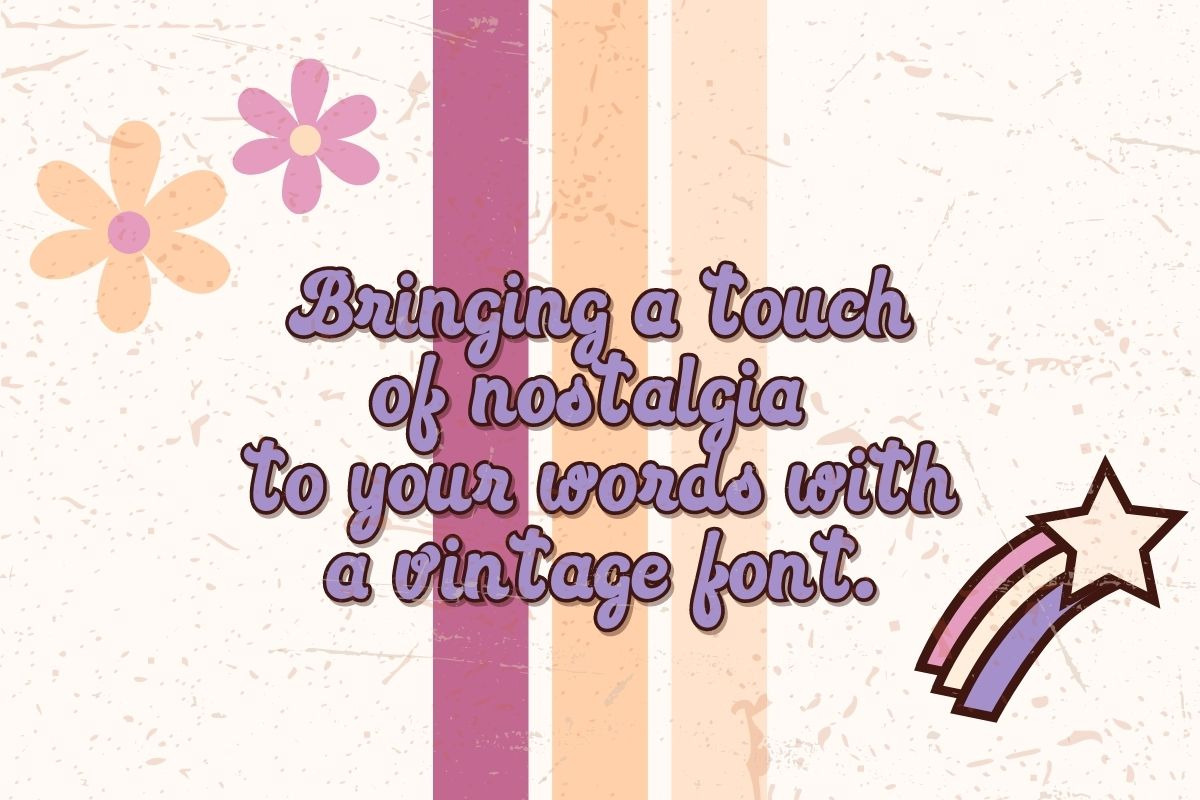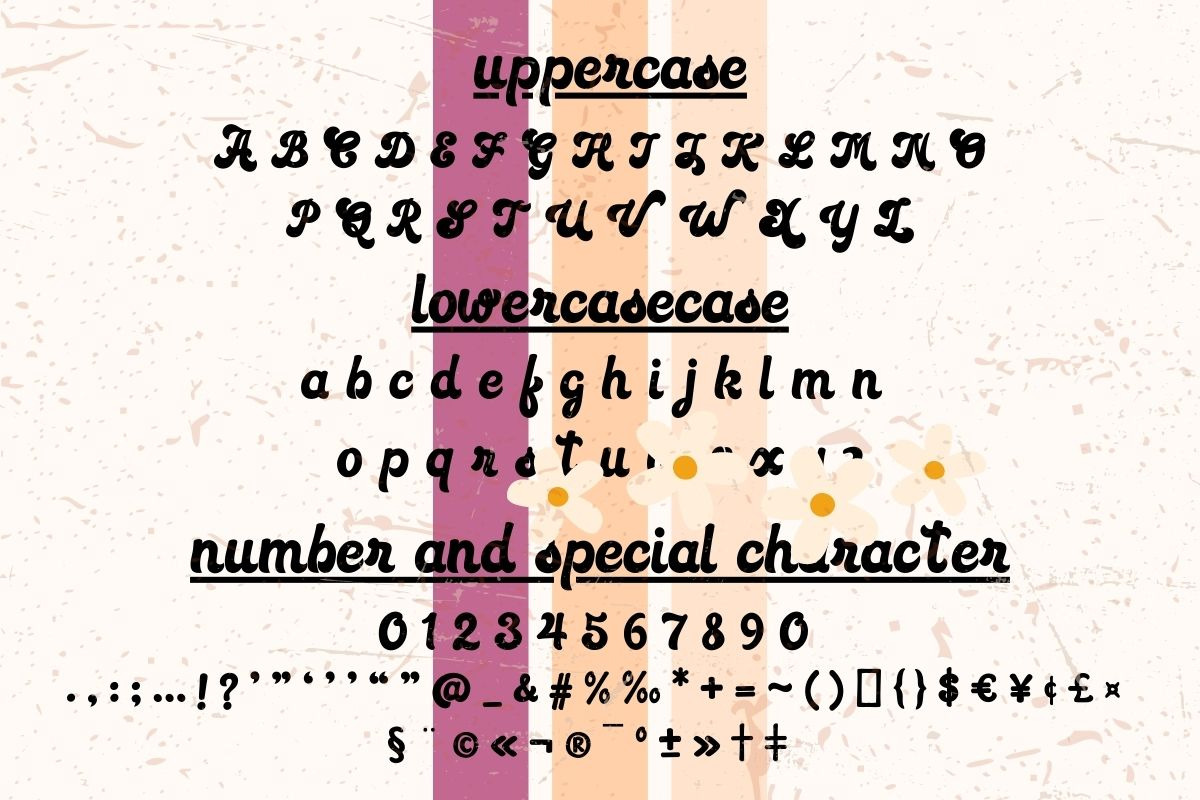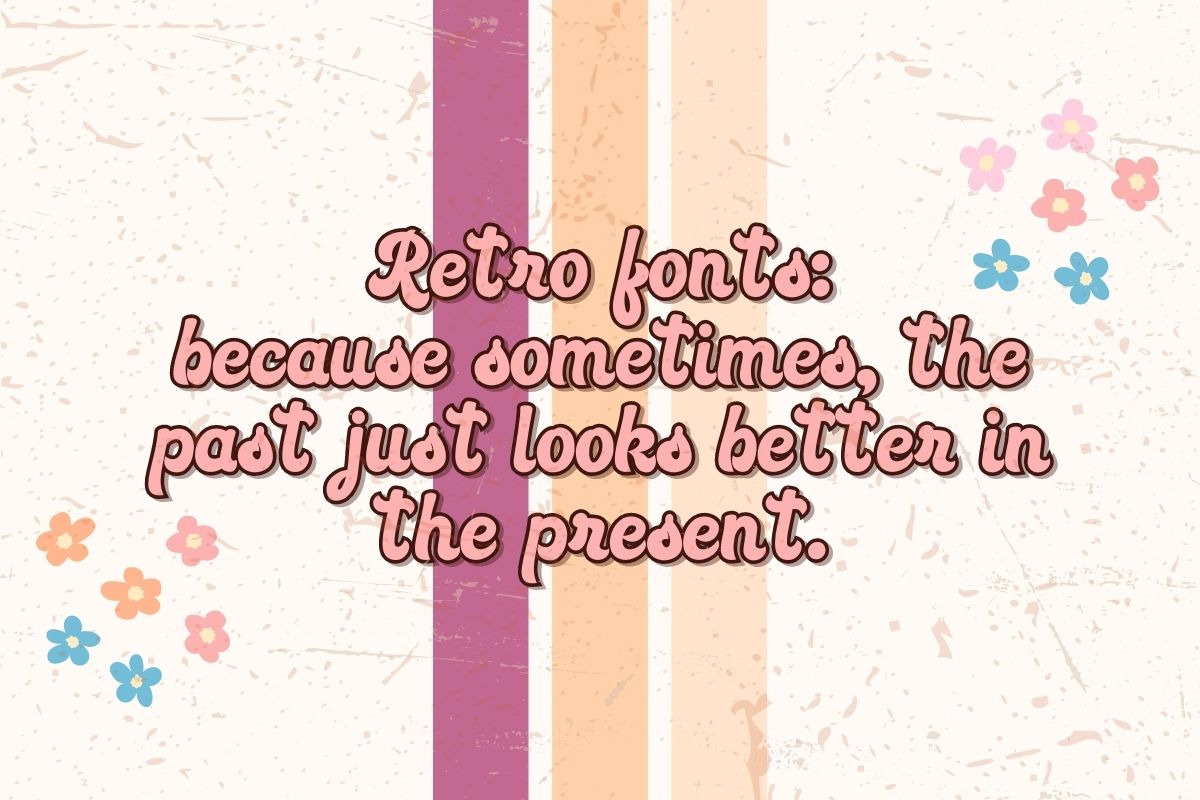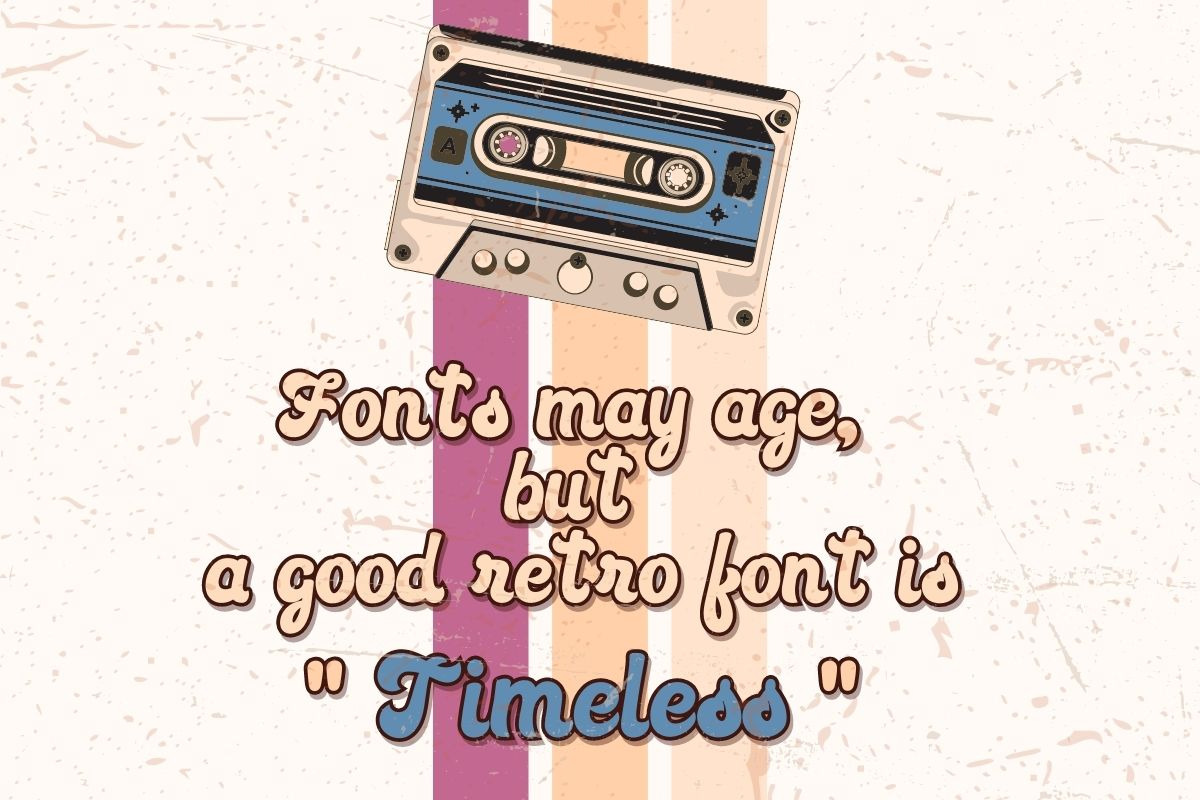
Classic Queen Retro - Groovy
Introducing Classic Queen Retro – a delightful fusion of DisplayFonts and Handwritten Fonts that captures the essence of timeless elegance. This font exudes a sense of nostalgia, effortlessly blending bold strokes and delicate curves to create a harmonious balance. With its refined charm, Classic Queen Retro is your friendly companion for projects seeking a touch of sophistication and a hint of nostalgia. Let your creativity flow as you explore the versatility of this font that seamlessly marries the best of both worlds.